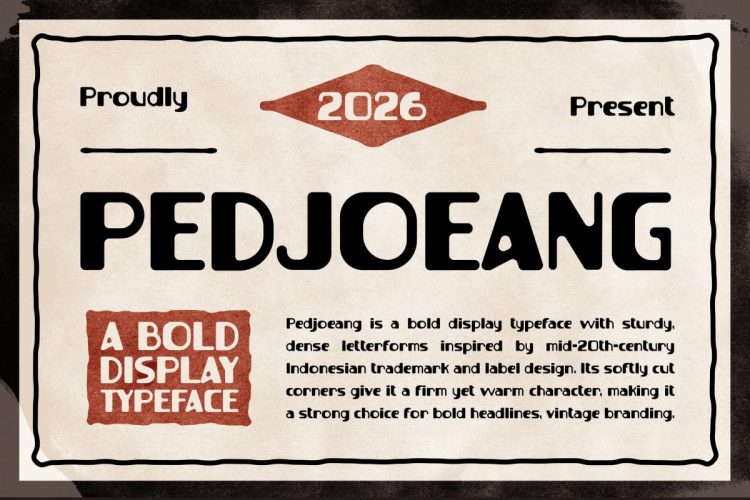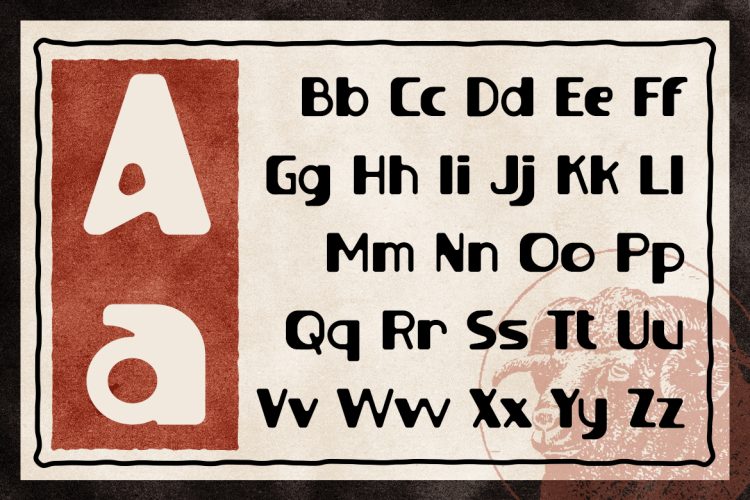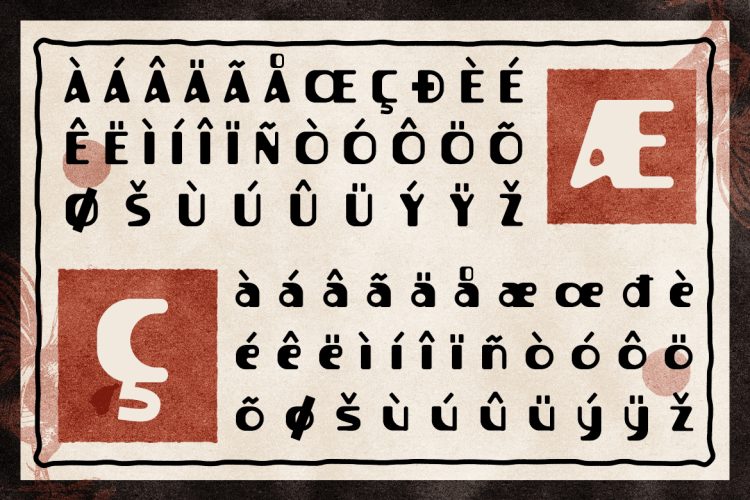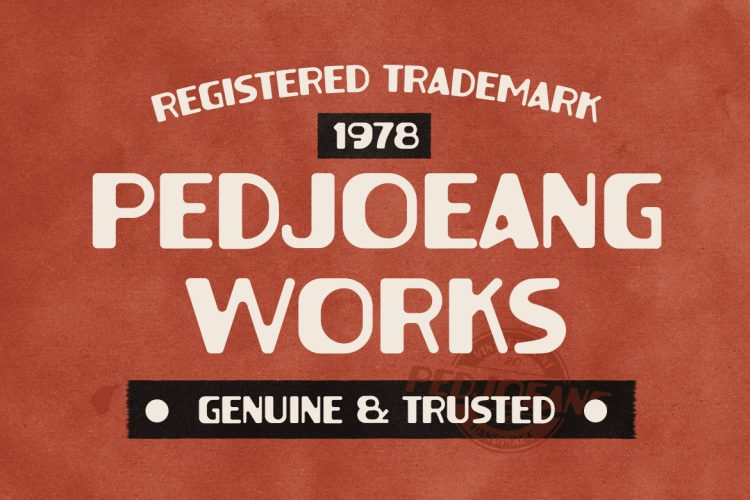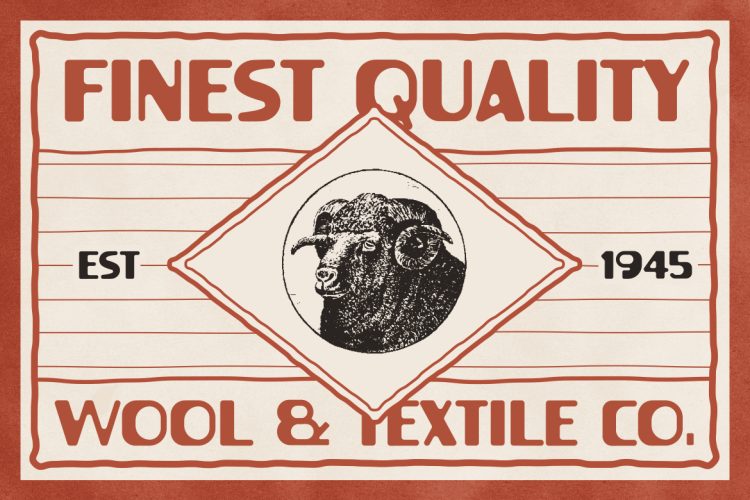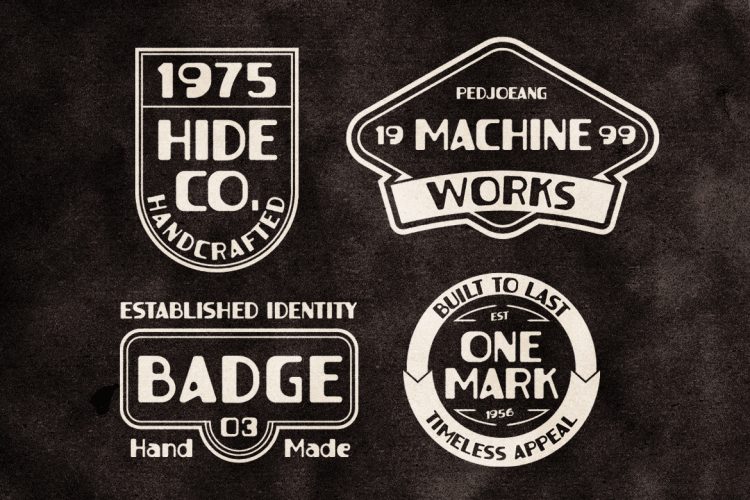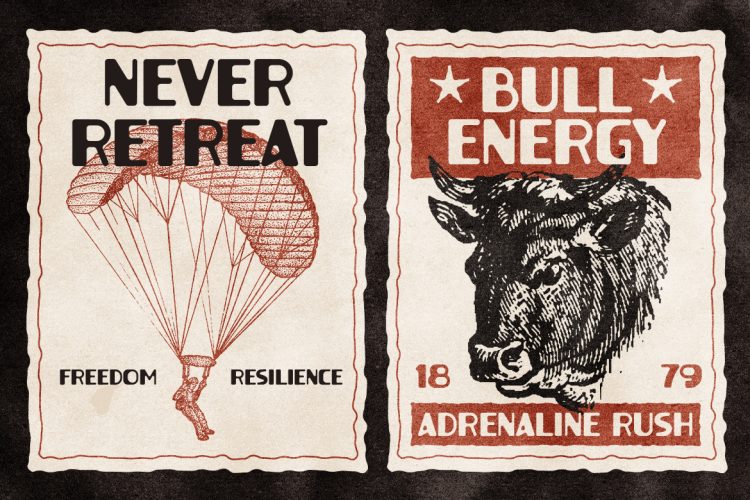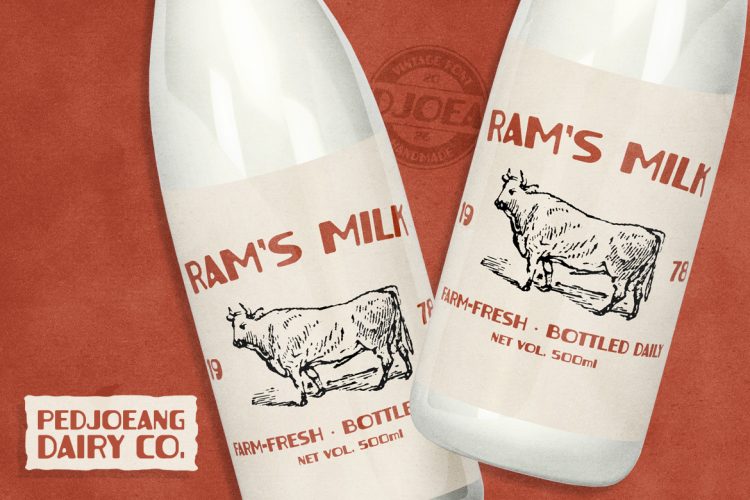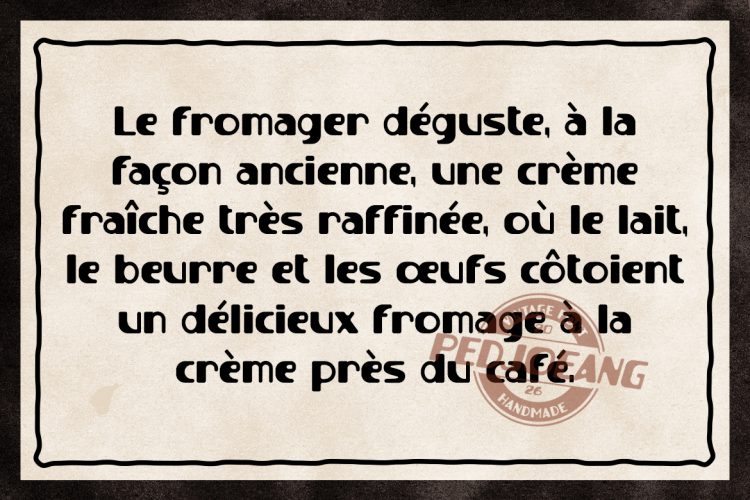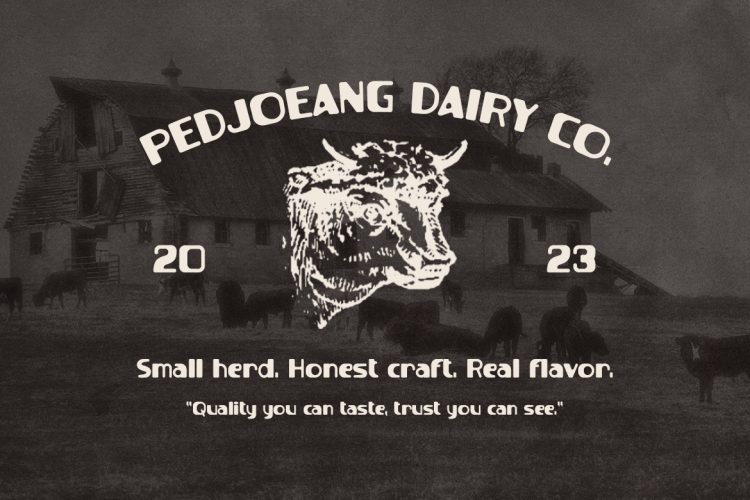
PEDJOEANG โ Bold Vintage Display Font
Vintage Font PEDJOEANG brings bold retro energy to modern design. Its sturdy letterforms and rugged shapes create an authentic old-school look. At the same time, its clear structure keeps every word strong and readable. Because of this, PEDJOEANG feels distinctive, confident, and full of vintage character.
Rugged Style, Strong Visual Impact
Furthermore, PEDJOEANG combines classic display typography with a raw vintage attitude. Its bold forms look especially striking with distressed textures and retro illustrations. In addition, it pairs naturally with heritage-inspired colors and classic layouts. As a result, every headline gains a powerful nostalgic feel. The font also supports 67 languages, making it suitable for worldwide creative projects.
Vintage Font PEDJOEANG Perfect For
For example, PEDJOEANG works beautifully for logos, branding, posters, packaging, badges, labels, and apparel. Moreover, it fits food brands, dairy packaging, textile designs, restaurants, advertising, and social media graphics. Likewise, designers, creative studios, and small businesses can use it to build a memorable vintage identity.
So, if you want bold typography with attitude and heritage, Vintage Font PEDJOEANG is ready to give your next project a serious retro punch.